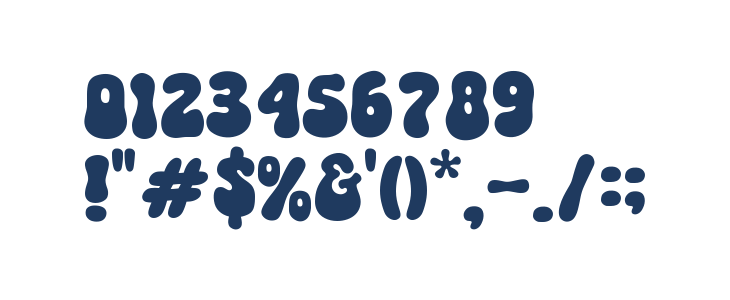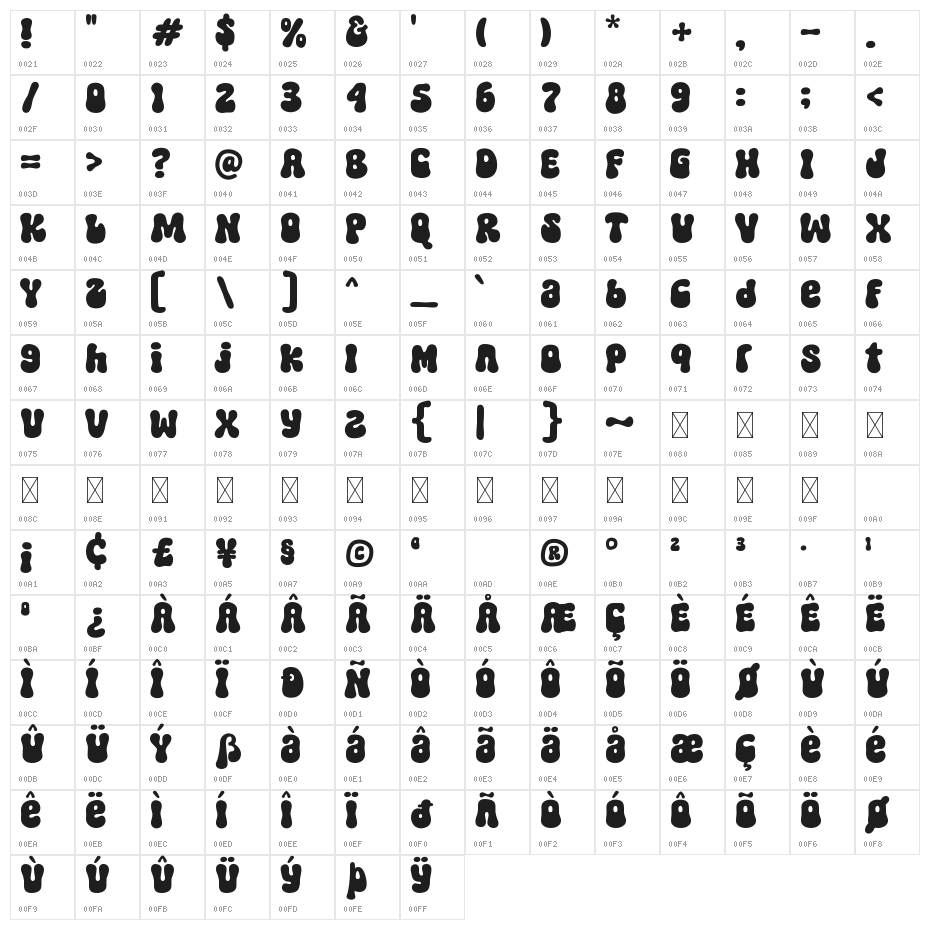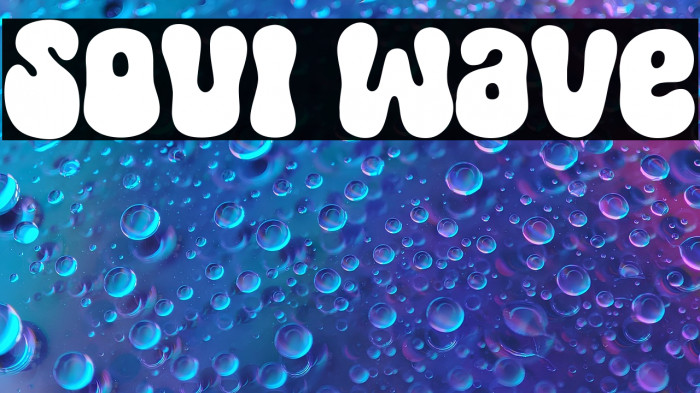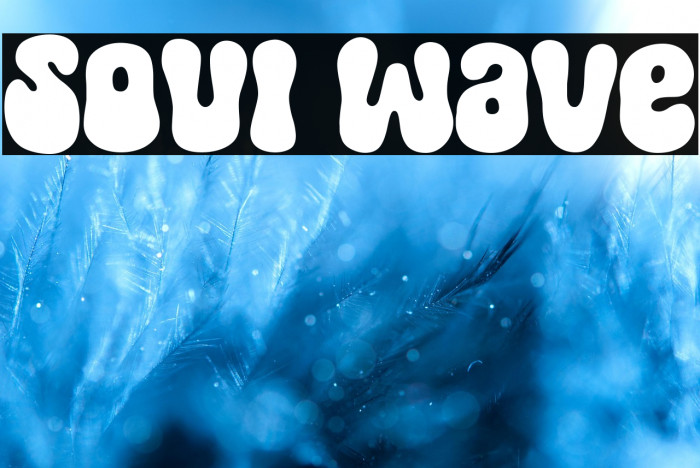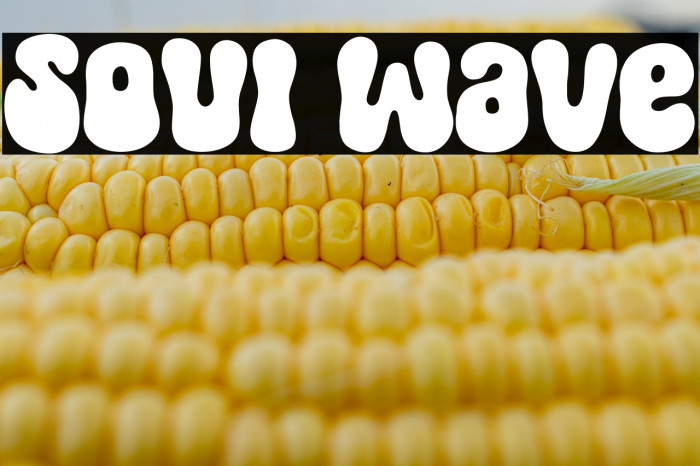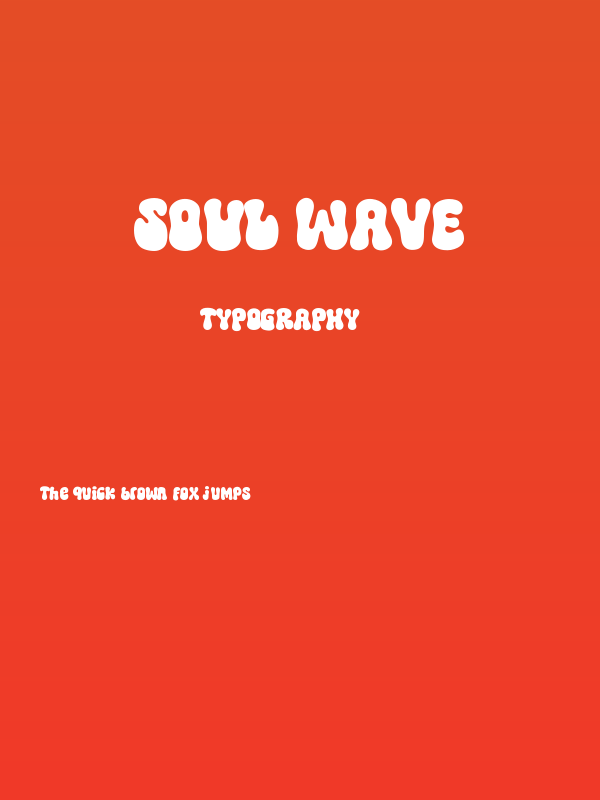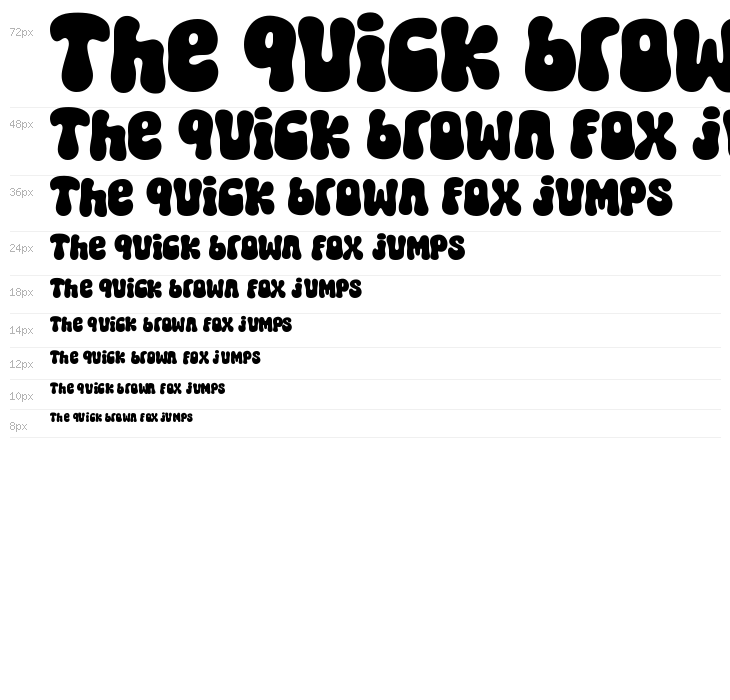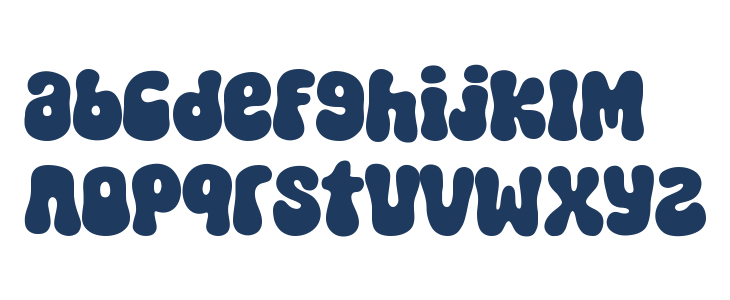
Soul Wave Font
Soul Wave Description
This font features a bold and playful design with rounded, bubbly characters that exude a sense of fun and whimsy. The letters are thick and have a soft, organic feel, reminiscent of retro or psychedelic styles. The overall appearance is eye-catching and dynamic, making it ideal for creative and expressive projects. The characters are evenly spaced, with a consistent thickness that maintains readability while adding a unique flair. This style is perfect for capturing attention and conveying a lively, energetic vibe.
| Overall Style | Retro, Playful, Energetic |
| Use Case | Headlines, Posters, Logos |
| Proposed Projects | Ideal for posters, music album covers, children's books, and any project needing a fun, lively touch. |